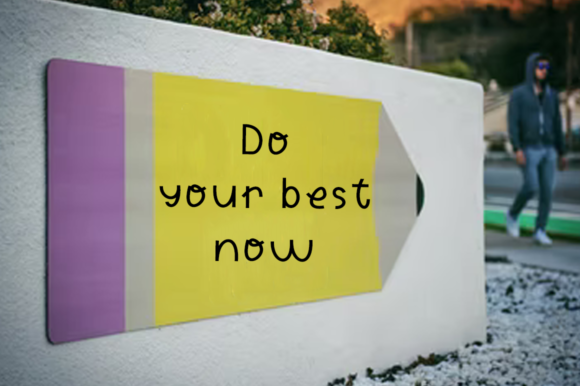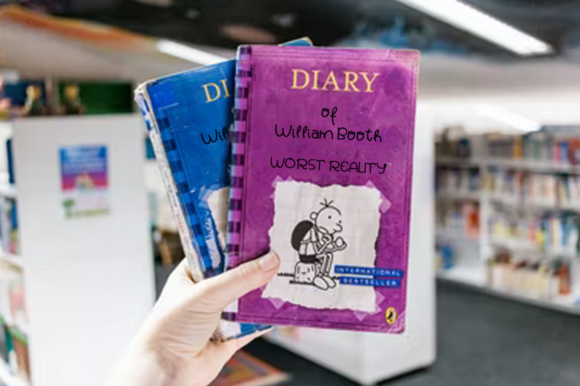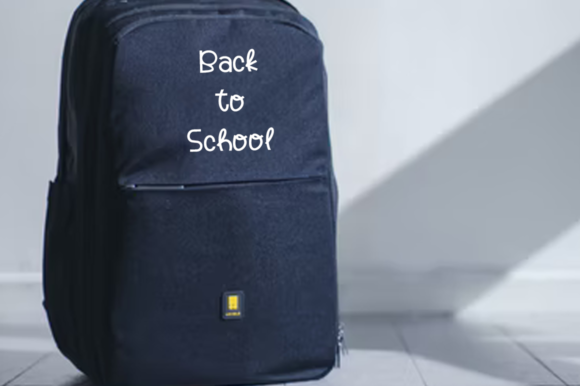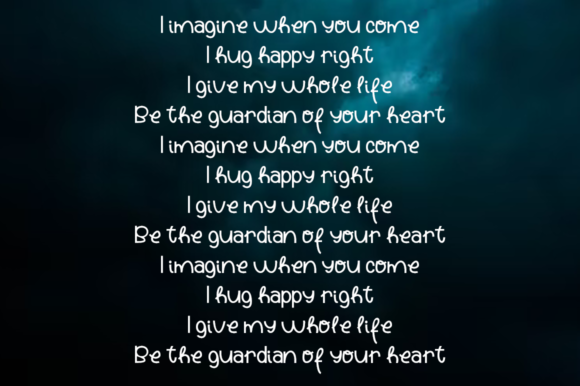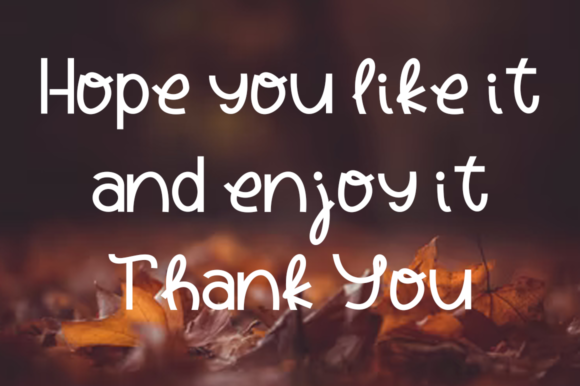
Introduction to Queenly Font
Remember that moment when you finally land on the perfect font for your creative project? The one that makes everything click into place and gives your design that extra oomph? For designers, finding the right font can be a game-changer. It’s what sets your work apart from the rest and makes it truly special. And, if you’re anything like us, you’re always on the lookout for that one magical font that will elevate your designs to the next level.
Enter the Queenly Font, a stunning display font that’s sure to capture your heart. With its clean, jolly, and adaptable design, this font is perfect for a wide range of creative projects, from cartoon titles and subtitles to book covers. And the best part? It’s available for free download, making it an incredibly valuable resource for designers of all levels.
Key Features of Queenly Font
- Unique, elegant script font with a touch of royalty, perfect for creative projects.
- Comes in 6 different styles, each with its own unique characteristics, making it a versatile design resource.
- Perfect for designers, artists, and writers looking for a unique and creative way to express themselves in their work.
Honest Review: Queenly Font
I recently had the chance to experiment with the Queenly Font, and I must say it’s a great addition to any designer’s toolkit. One of the standout features of this font is its high quality design, making it perfect for any creative project that requires a touch of elegance.
- ✨ Beautiful Script: The Queenly Font features a stunning script that adds a personal touch to any design. It’s perfect for invitations, wedding stationery, or any other creative project that requires a unique and elegant touch.
However, there are a few limitations to consider. ⚠️ The font may not be suitable for all types of projects, particularly those that require a bold or sans-serif font. Additionally, the font may not be compatible with all operating systems or software.
Overall, I’m impressed with the Queenly Font and would highly recommend it to designers looking for a high-quality, elegant font for their creative projects. Just be sure to check the limitations before using it for your next project.
Some tips for getting the most out of Queenly Font include using it for headings and titles, as it adds a touch of elegance to your design. You can also use it for creative projects that require a high-quality, unique font. Some common use cases include wedding invitations, business cards, and marketing materials.